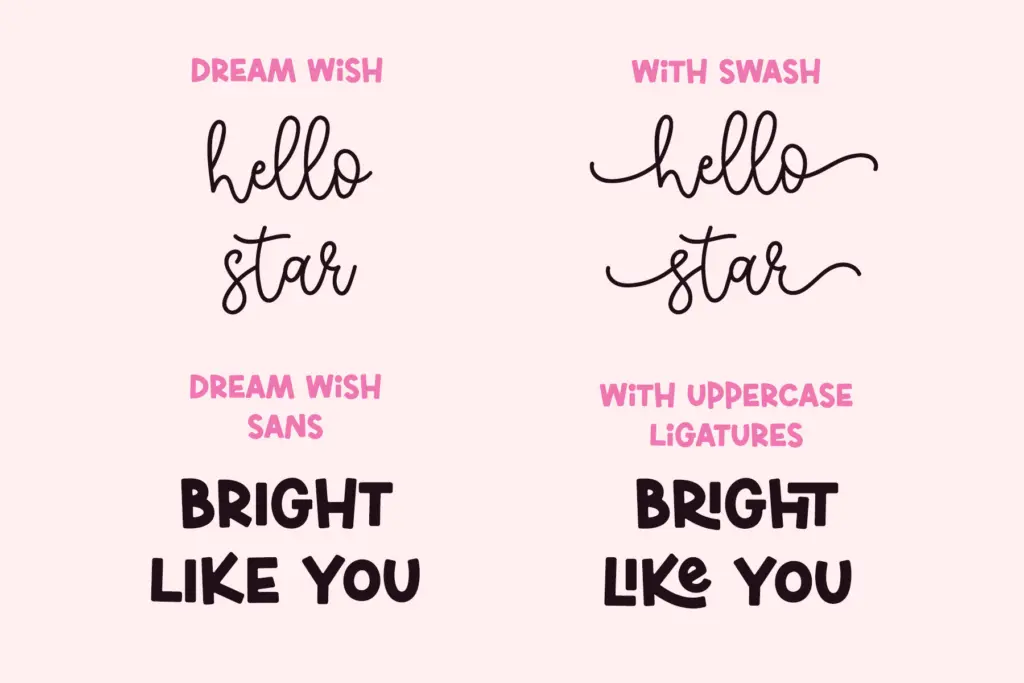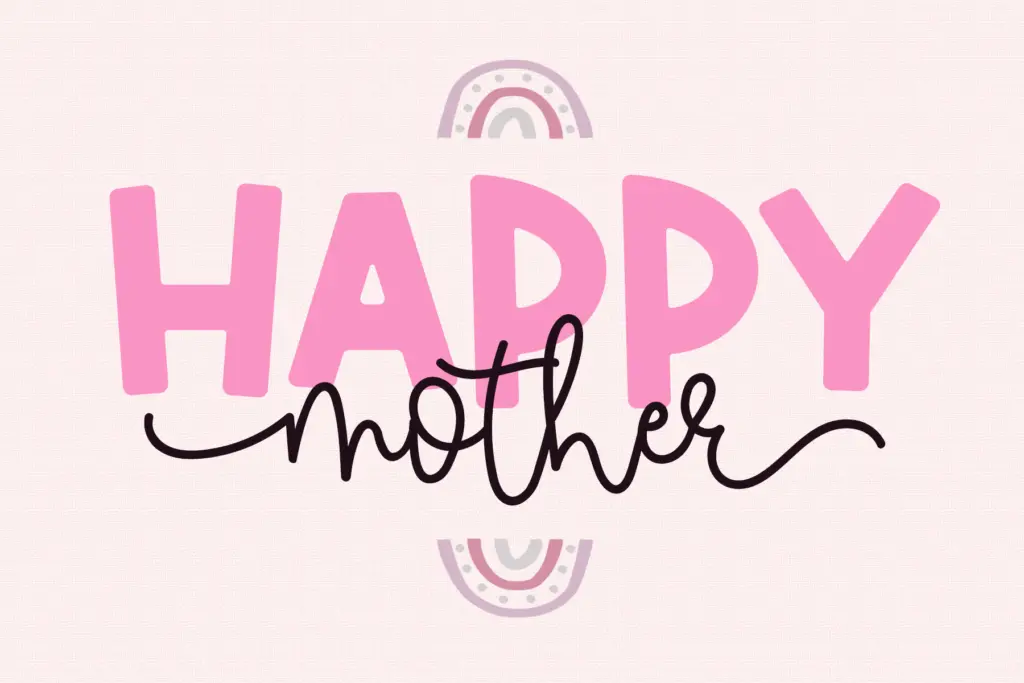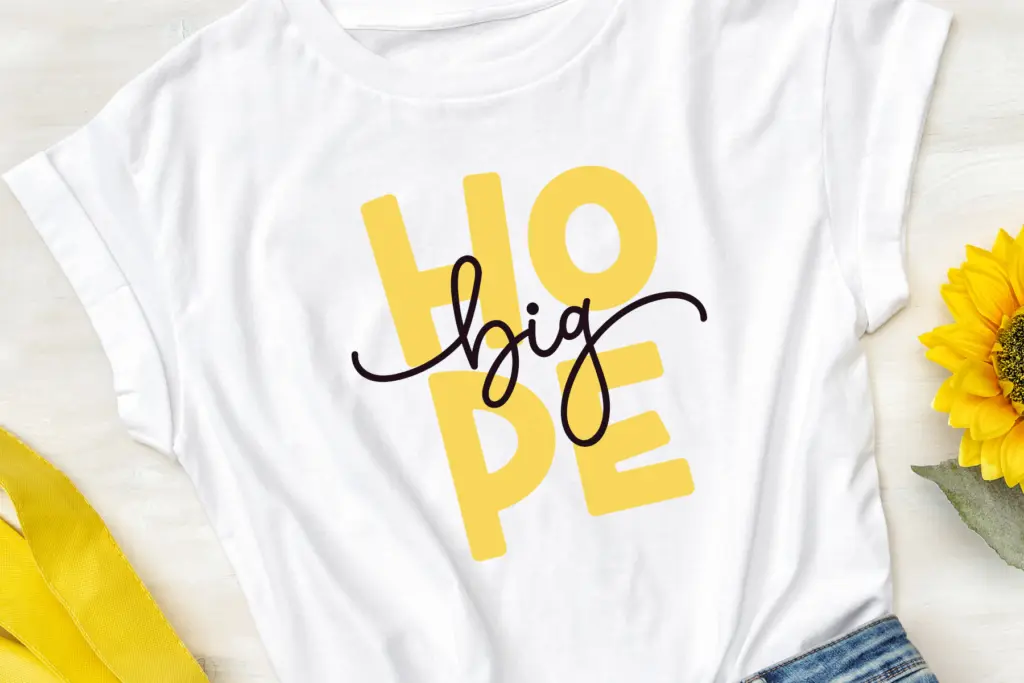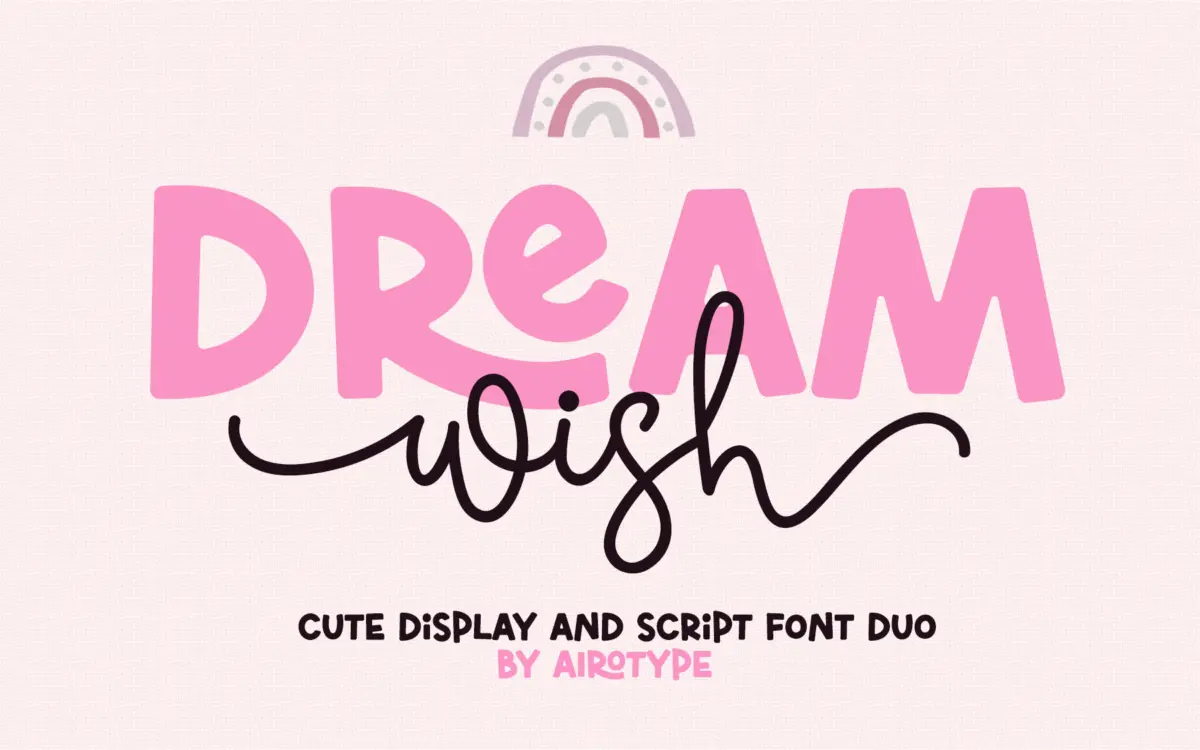
Dream Wish is a two-part set built around a single mood: cheerful, slightly childlike, and unfussy. The script half is a monoline hand, meaning the stroke stays a single weight from entry to exit rather than swelling through the downstrokes the way a brush script would. That keeps it light and casual, closer to a felt-tip note than calligraphy. Letters lean forward with a loose, bouncy rhythm — baselines drift a touch, x-heights vary slightly letter to letter, which is clearly intentional rather than sloppy, and it’s what gives the face its energetic, handmade feel.
The companion sans is all caps, bold, and blocky enough to read as a stamp or label face rather than a body text option. Where the script curls and swings, the sans plants its feet — square, upright, no-nonsense. Pairing a loose script with a firm slab-like caps set is a familiar move in the handwritten-duo space, and it works here because the two halves don’t compete: the script carries the personality, the sans carries the weight.
The script includes both cases with lowercase swashes, so ascenders and descenders can be pushed into flourishes on end letters — useful for closing off a word without needing a separate swash character set to hunt through. The sans is caps-only but includes some uppercase ligatures, letting a few common letter pairs lock together into a single glyph rather than sitting side by side. Numerals and punctuation are covered in both styles, and the foundry notes broad multilingual accent support, which matters if your working language uses diacritics.
This duo does its best work small and short: a birthday card headline in the script with a supporting line in the bold caps, a sticker or label combining both, a t-shirt design or sublimation print where the bounce and swash read as charm rather than noise. Kids’ products, school materials, party invitations, and seasonal or summer-themed pieces all sit comfortably in its wheelhouse — anywhere
- The monoline script's uneven baseline gives it a genuinely handmade bounce rather than a generic script wobble.
- Lowercase swashes let you finish words with a flourish without hunting through a separate glyph set.
- Pairing a loose script with a blocky bold caps sans gives designers an easy built-in contrast for two-line layouts.
- The script's monoline strokes and drifting baseline make it unreliable at small sizes or in dense text.
- The sans is caps-only, so it can't stand in for a body-text partner beyond short labels and headlines.
Dream Wish is a competent, cheerful craft-market duo: a loose monoline script paired with a firm bold caps set. It's not built for long-form reading or serious branding work, but for cards, labels, and t-shirt lines it does exactly what it promises without overreaching.